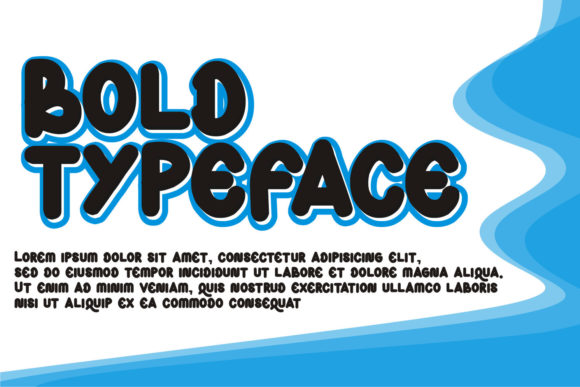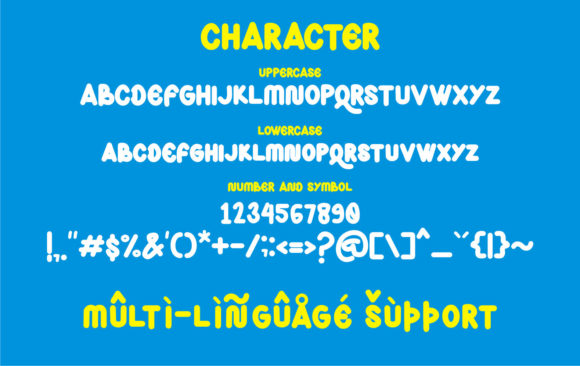
Your Lover Display Font
This is a thick lettered and cool display font. Simple but with a strong visual effect, this font will instantly make your creations more appealing than any others!